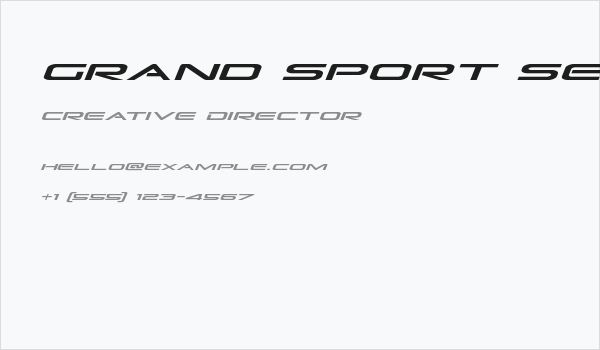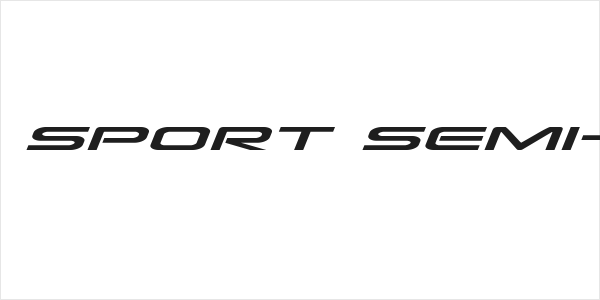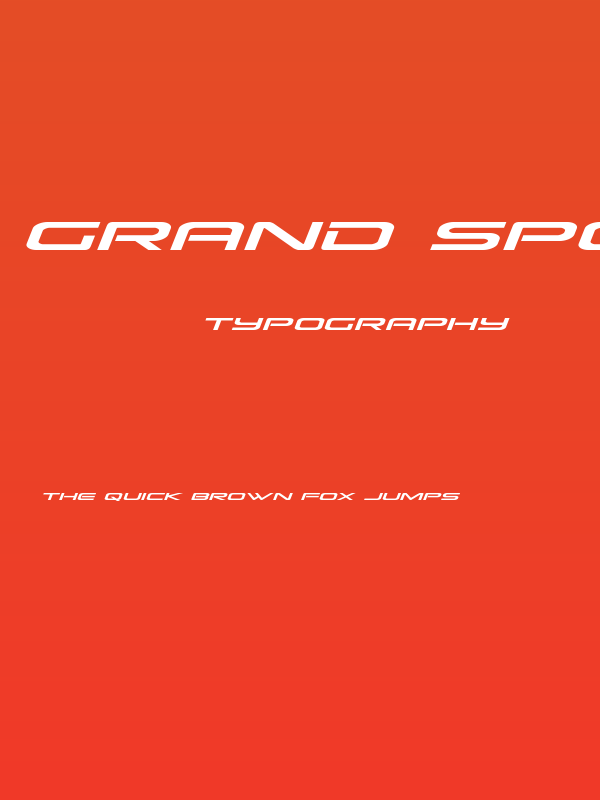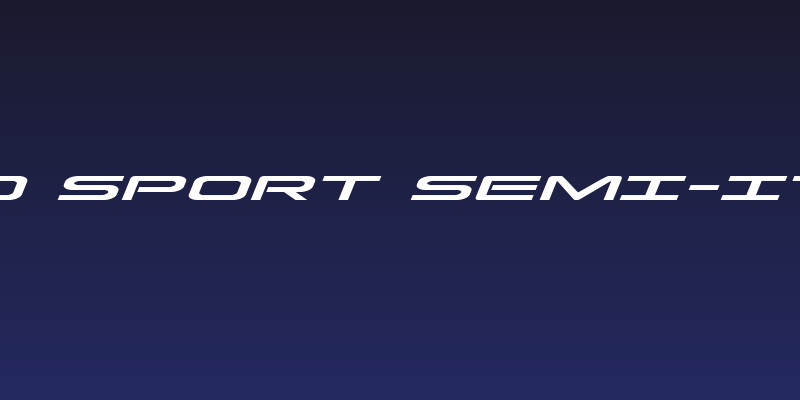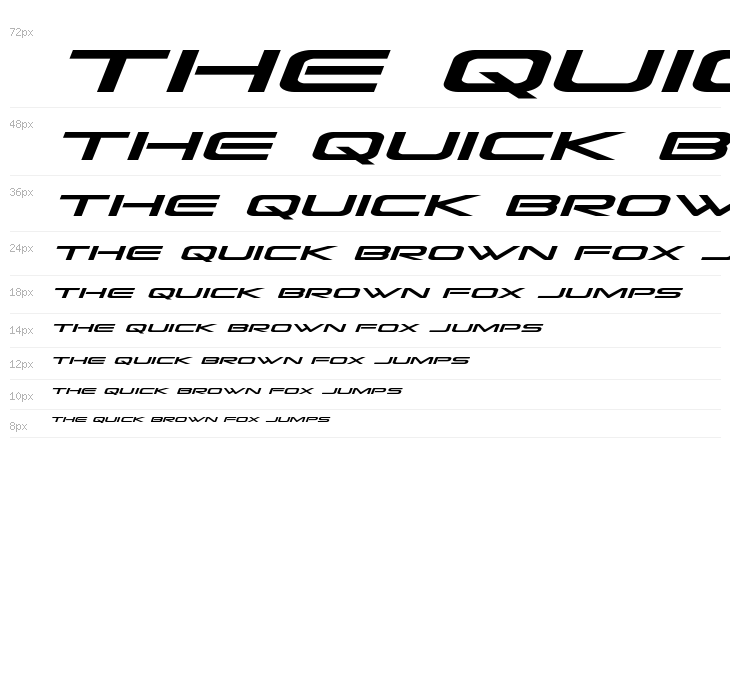
Grand Sport Semi-Italic Font
Grand Sport Semi-Italic Description
This font exudes a sleek, modern aesthetic with its italicized, semi-bold characters. The letters are slightly slanted, giving a sense of motion and dynamism, ideal for conveying speed and agility. The design features clean lines and a geometric structure, with consistent stroke widths that provide a balanced and harmonious appearance. The numerals and special characters maintain this cohesive style, ensuring versatility across various applications. The overall look is both futuristic and sporty, making it suitable for projects that require a contemporary and energetic feel.